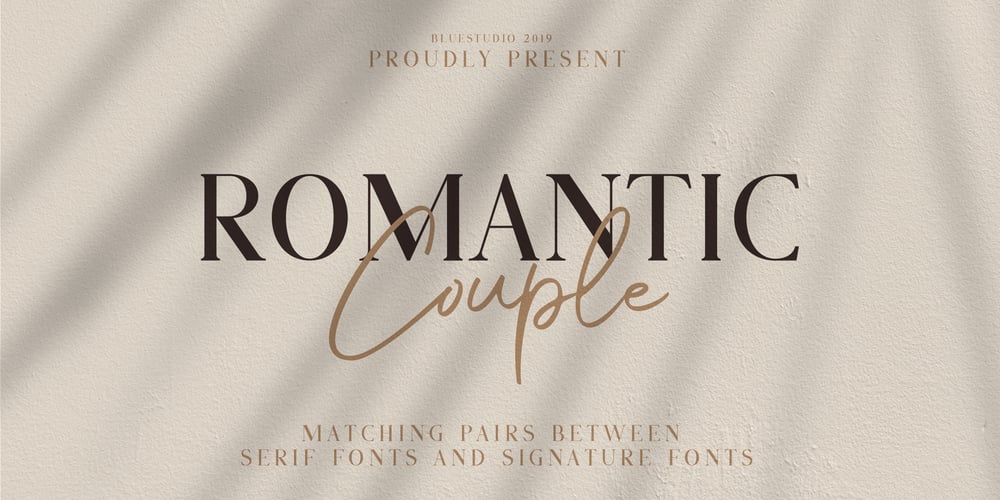
Romantic Couple Font Family was designed by Winarno and published by Bluestudio. Romantic Couple contains 2 styles and family package options. Romantic Couple is the perfect collection of fonts for any design project that requires a light and charming feel. Use it to turn any design project into a true standout! Romantic Couple includes Multilingual support – spread your message globally AÀÁÂÃÄÅCÇDÐEÈÉÌÍÎÏIÌÍÎÏNÑOØÒÓÔÕÖUÙÜÚÛWYÝŸÆßÞþ Encoded PUA Characters Fonts are fully accessible without additional design software. Happy designing…! Thanks.